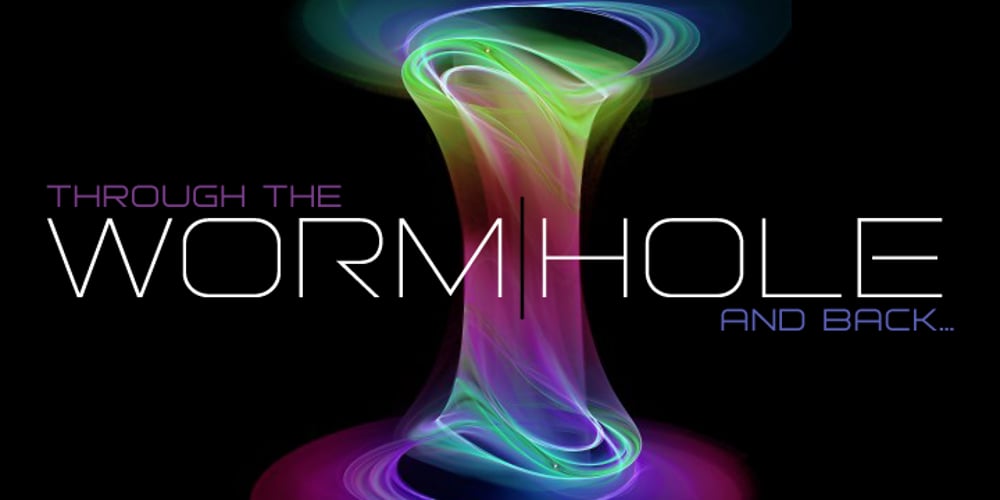
Bitsumishi Pro v2
Bitsumishi Pro v2 font
Bitsumishi Pro v2 Font Family was designed by Roger S. Nelsson, Levente Halmos and published by CheapProFonts. Bitsumishi Pro v2 contains 14 styles and family package options. A squarish uppercase font perfect for logos and short eye-catching headings. The lowercase contains some alternate letterforms – more specifically: uppercase have closed forms (I made a new A D and R), and lowercase have some open alternatives (new B E F P and T in addition to the A D and R). I noticed the two width version of the H and made similar normal and wide versions of J and L. Then I added lots of missing glyphs and all the diacritic letters, of course – and finally the family has been expanded to 7 weights AND corresponding Italics! Enjoy! ALL fonts from CheapProFonts have very extensive language support: They contain some unusual diacritic letters (some of which are contained in the Latin Extended-B Unicode block) supporting: Cornish, Filipino (Tagalog), Guarani, Luxembourgian, Malagasy, Romanian, Ulithian and Welsh. They also contain all glyphs in the Latin Extended-A Unicode block (which among others cover the Central European and Baltic areas) supporting: Afrikaans, Belarusian (Lacinka), Bosnian, Catalan, Chichewa, Croatian, Czech, Dutch, Esperanto, Greenlandic, Hungarian, Kashubian, Kurdish (Kurmanji), Latvian, Lithuanian, Maltese, Maori, Polish, Saami (Inari), Saami (North), Serbian (latin), Slovak(ian), Slovene, Sorbian (Lower), Sorbian (Upper), Turkish and Turkmen. And they of course contain all the usual “western” glyphs supporting: Albanian, Basque, Breton, Chamorro, Danish, Estonian, Faroese, Finnish, French, Frisian, Galican, German, Icelandic, Indonesian, Irish (Gaelic), Italian, Northern Sotho, Norwegian, Occitan, Portuguese, Rhaeto-Romance, Sami (Lule), Sami (South), Scots (Gaelic), Spanish, Swedish, Tswana, Walloon and Yapese.